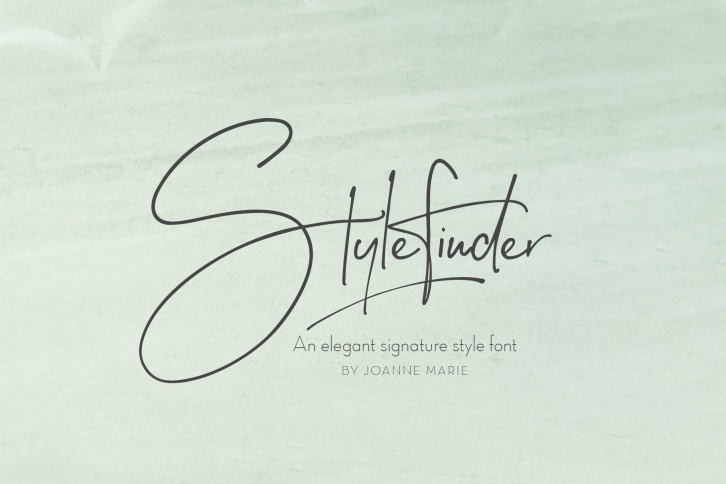
Stylefinder signature is a great font that was designed by Joanne Marie. Imagine the amount of combinations you can create using this font! The archive is 16.56 MB and it was released on August 27, 2019. Stylefinder signature looks beautiful on wedding invitations, greeting cards, logos, posters, labels, t-shirt designs, logos, business cards and is perfect for use in ink or watercolor works, fashion, magazines, packaging and food menus, children's books and more!